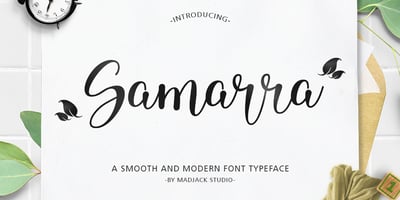
Samarra Font Family was designed by Zaki Muhammad and published by madjack.font. Samarra contains 1 styles and family package options. Samarra is a modern script. This font is casual and beautiful with exceptional swashes. It can be used for various purposes, such as logos, product packaging, wedding invitations, branding, headlines, signage, labels, signatures, book covers, posters, quotes, and more. Samarra includes a change of the OpenType language style, binding and international support for most Western languages. To activate the OpenType Stylistic alternative, you need a program that supports OpenType features such as Adobe Illustrator CS, Adobe Indesign & CorelDraw X6-X7, Microsoft Word 2010 or newer versions. How to access all alternative characters using Adobe Illustrator: https://www.youtube.com/watch?v=XzwjMkbB-wQ Samarra script is coded with PUA Unicode, which allows full access to all additional characters without having to design special software. Mac users can use the Font Book, and Windows users can use Character Map to view and copy one of the additional characters to insert into your favorite text editor / application. How to access all alternative characters, using Windows Character Map with Photoshop: https://www.youtube.com/watch?v=Go9vacoYmBw If you need help or have questions, please let me know. I am happy to help 🙂 Thank you & Congratulations on Designing.